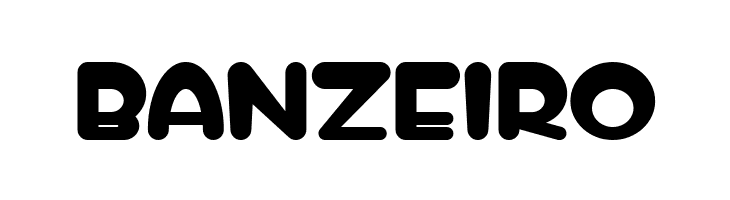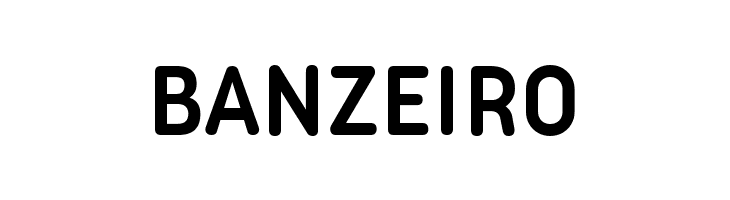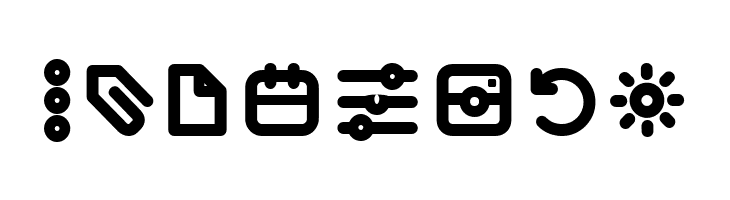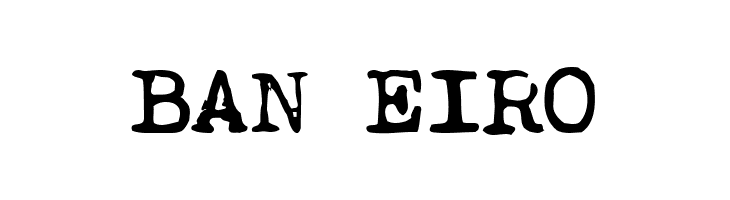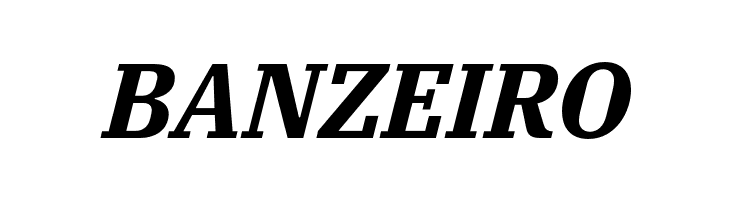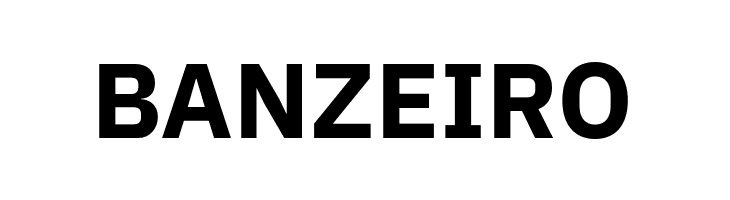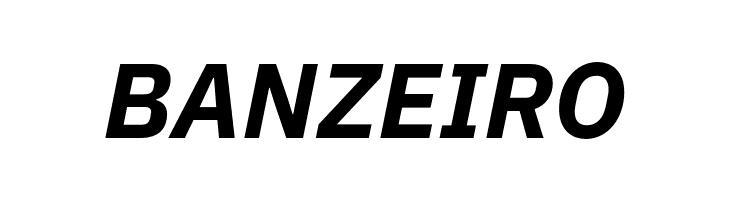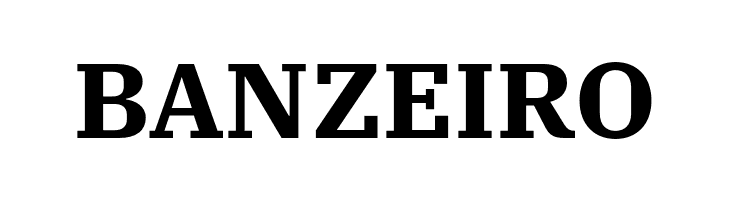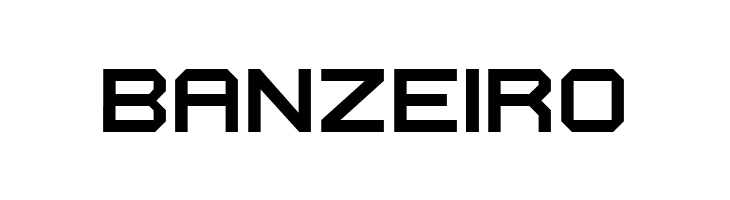
A bold and italic serif font with a classic and elegant style.
A bold, monospaced font with a modern, geometric design.
A bold, monospaced font with a modern and clean design, ideal for coding and data presentation.
A bold, italic monospaced font with a modern and structured appearance.
A bold, modern sans-serif font with a clean and uniform appearance.
A bold, modern sans-serif font with clean lines and strong readability.
A modern, bold, italic sans-serif font with a clean and dynamic appearance.
A bold, italicized sans-serif font with a modern and dynamic appearance.
A modern, bold, and condensed sans-serif typeface with a clean and professional look.
A modern, bold, italic, and condensed sans-serif font.
Bold, modern sans-serif with geometric shapes and high legibility.
A bold serif typeface with strong, thick strokes and pronounced serifs.
A bold, modern serif font with a classic touch, ideal for professional use.
A bold, italic serif typeface with a modern yet classic appeal.
A bold, italic serif font with strong strokes and elegant curves.
A bold, rounded font with a playful and friendly style.
A pixelated, monospaced font with a bold, digital aesthetic.
Bold, geometric pictograms with rounded corners and high legibility.
A bold, rounded sans-serif font with smooth curves and uniform strokes.
A bold, futuristic font with geometric shapes and a modern aesthetic.
A bold, italicized font with a futuristic and dynamic design.
A bold, distressed font with a vintage, typewriter-inspired style.
A bold, Western-style slab serif font with thick strokes and a strong presence.
A bold, decorative typeface with a vintage Western style.
A bold, adventurous font with a Wild West aesthetic and strong, slab-like serifs.
A bold, italicized font with sharp, angular edges and a futuristic style.